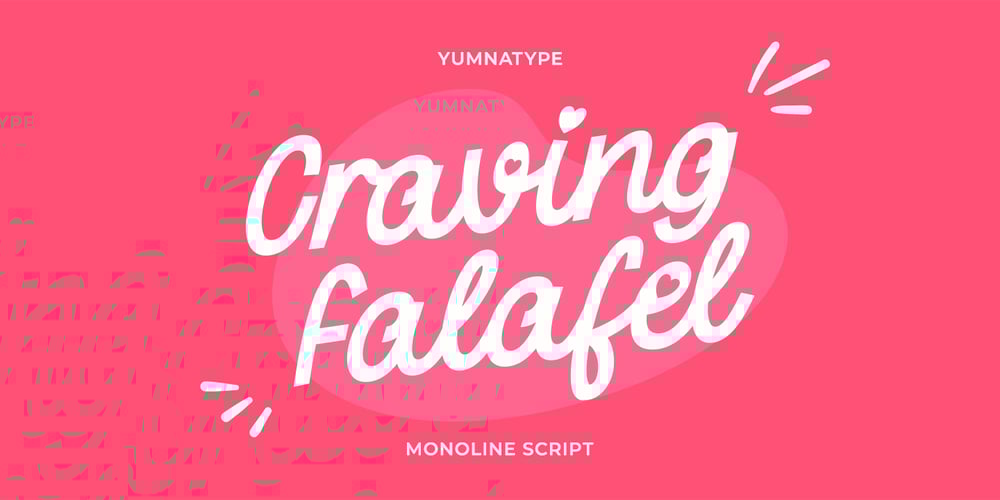
Craving Falafel Font Family was designed by Donis Miftahudin and published by Yumna Type. Craving Falafel contains 1 styles and family package options. Craving Falafel is a delightful monoline script font that captures the warmth and charm of hand-lettered scripts. Each letter in Craving Falafel is meticulously crafted with rounded shapes, giving it a soft and inviting appearance. The fairly thick weight of the font adds to its bold and confident presence, while the low contrast ensures clarity and legibility in any size.What sets Craving Falafel apart is its monoline style, which gives it a consistent and uniform look throughout. In addition, enjoy the features here.Features: Ligatures Multilingual Supports PUA Encoded Numerals and Punctuations Craving Falafel fits in headlines, logos, posters, flyers, branding materials, print media, editorial layouts, and many more designs. Find out more ways to use this font by taking a look at the font preview.Thanks for purchasing our fonts. Hopefully, you have a great time using our font. Feel free to contact us anytime for further information or when you have trouble with the font. Thanks a lot and happy designing.